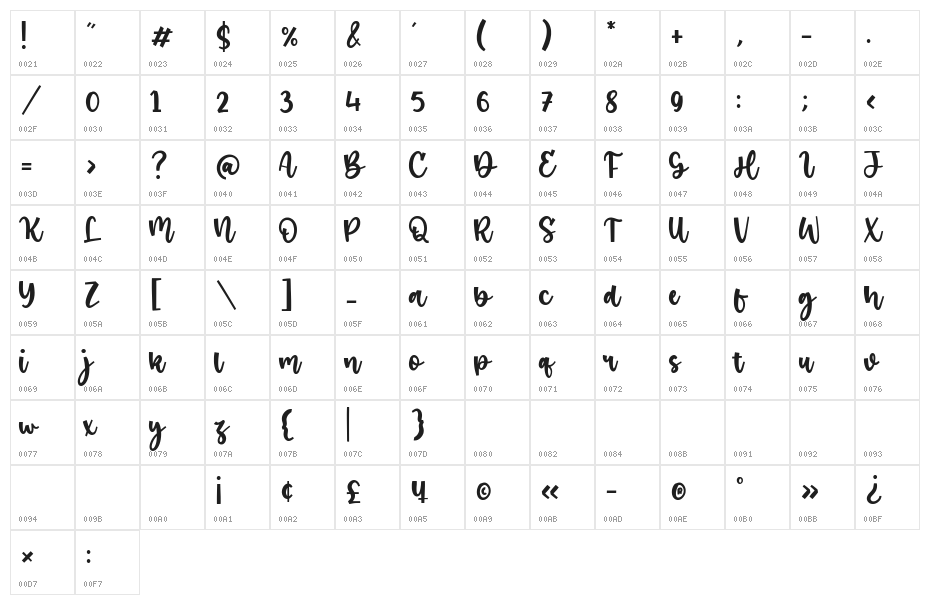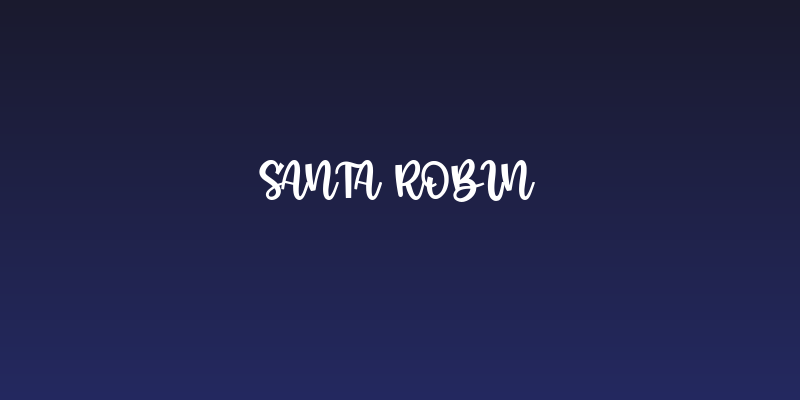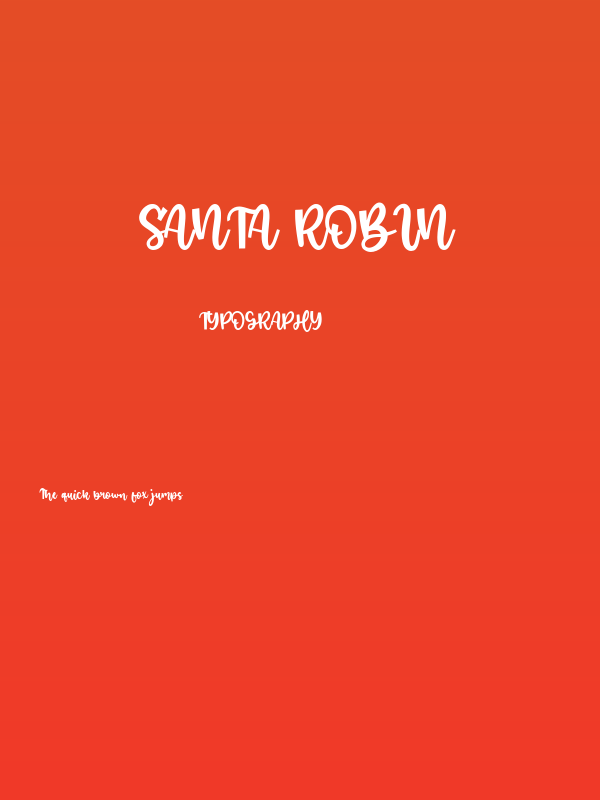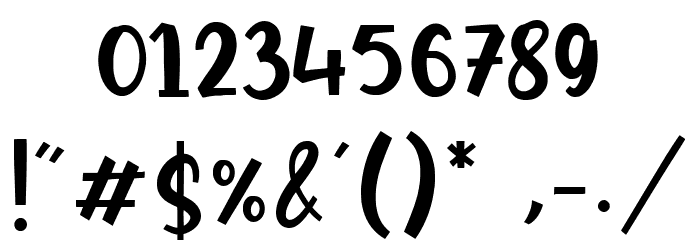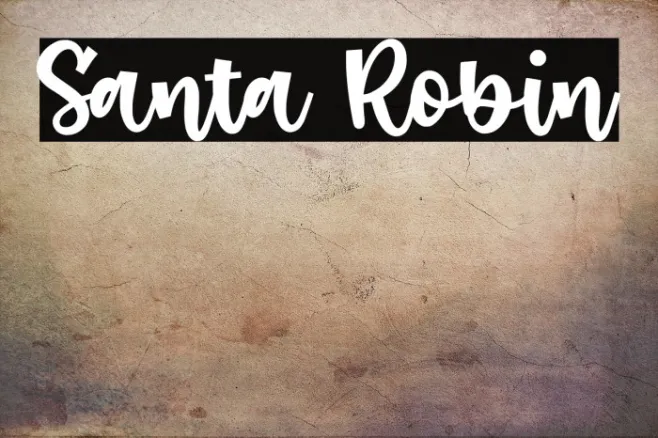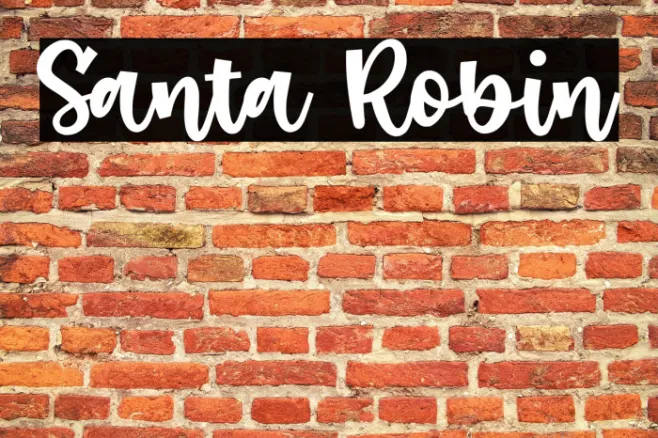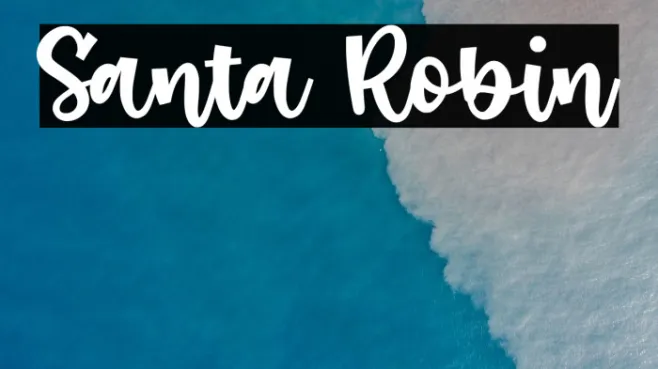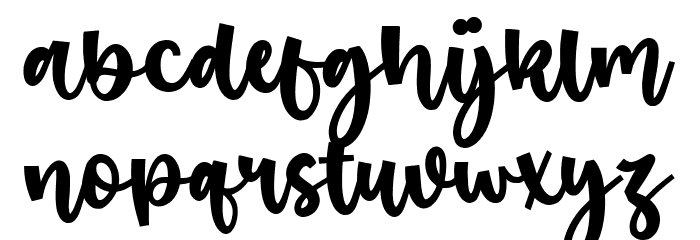
Santa Robin Font
Santa Robin Description
This font features a playful and bold script style with a handwritten appearance. The letters are connected in a fluid manner, giving it a lively and dynamic feel. The uppercase characters are slightly more structured, while the lowercase letters exhibit a more casual, free-flowing style. The numerals are consistent with the overall aesthetic, maintaining the same bold and playful characteristics. Special characters are included, matching the whimsical and energetic vibe of the font. This style is perfect for adding a personal touch to any design, making it stand out with its unique and charming appeal.